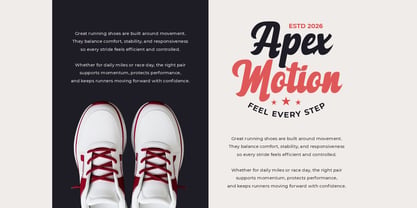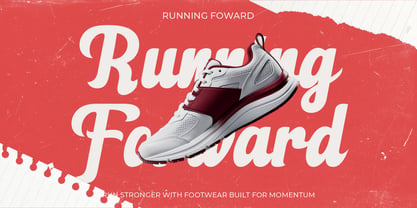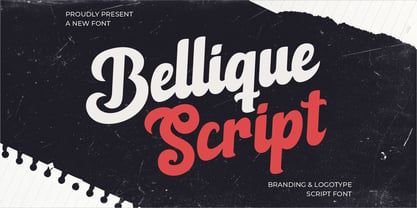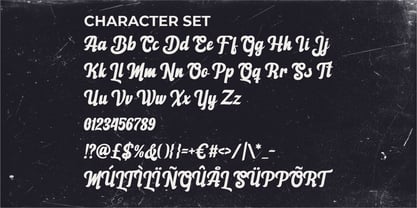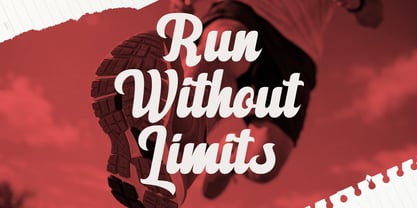
Bellique
by Shanaf
The Bellique Font Family was designed by Yesie Erma Yunita and published by Shanaf. Bellique contains 1 styles. More about this family
Bellique Logo Script Font delivers expressive lettering designed for modern branding and strong logotype composition. The letterforms feature thick strokes with smooth curves and confident terminals. Each character shows a balanced contrast between bold bodies and slightly tapered endings. The baseline flows naturally, creating a dynamic rhythm across words. Ascenders rise tall and elegant, while descenders sweep smoothly with controlled movement. The shapes feel rounded and fluid, helping the script remain readable at large display sizes. Stroke connections appear seamless, producing continuous word structures ideal for brand names. The structure reflects bold script typography with a sporty and energetic personality. Bellique Logo Script Font supports logo systems that require movement, strength, and recognizable forms. Its confident curves create impact without losing clarity in headlines or titles. This font works effectively for branding projects focused on sports products, running themes, and performance businesses. It suits logos for footwear brands, sports gear companies, and athletic product startups. The bold script style also fits advertising headlines, posters, and promotional campaigns. Designers can apply it to product packaging, magazine titles, and book covers. The flowing structure works well for motivational quotes and energetic slogans. It also supports greeting cards, stickers, invitations, and crafting projects. The typography communicates speed, motion, and strength through its sweeping curves. This makes it suitable for modern fitness brands and active lifestyle businesses. Bellique Logo Script Font helps designers build memorable brand identities with expressive script logotypes and strong visual rhythm.
Designers: Yesie Erma Yunita
Foundry: Shanaf